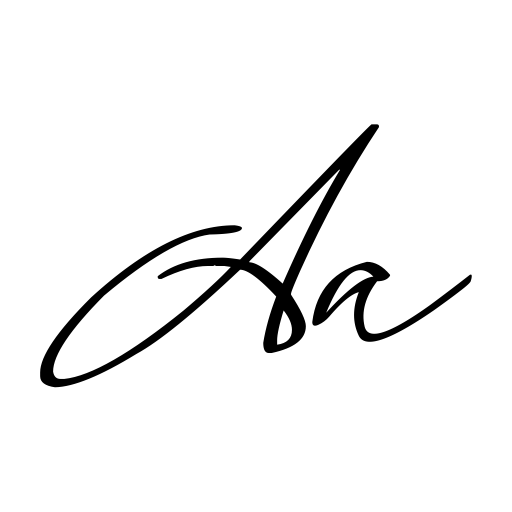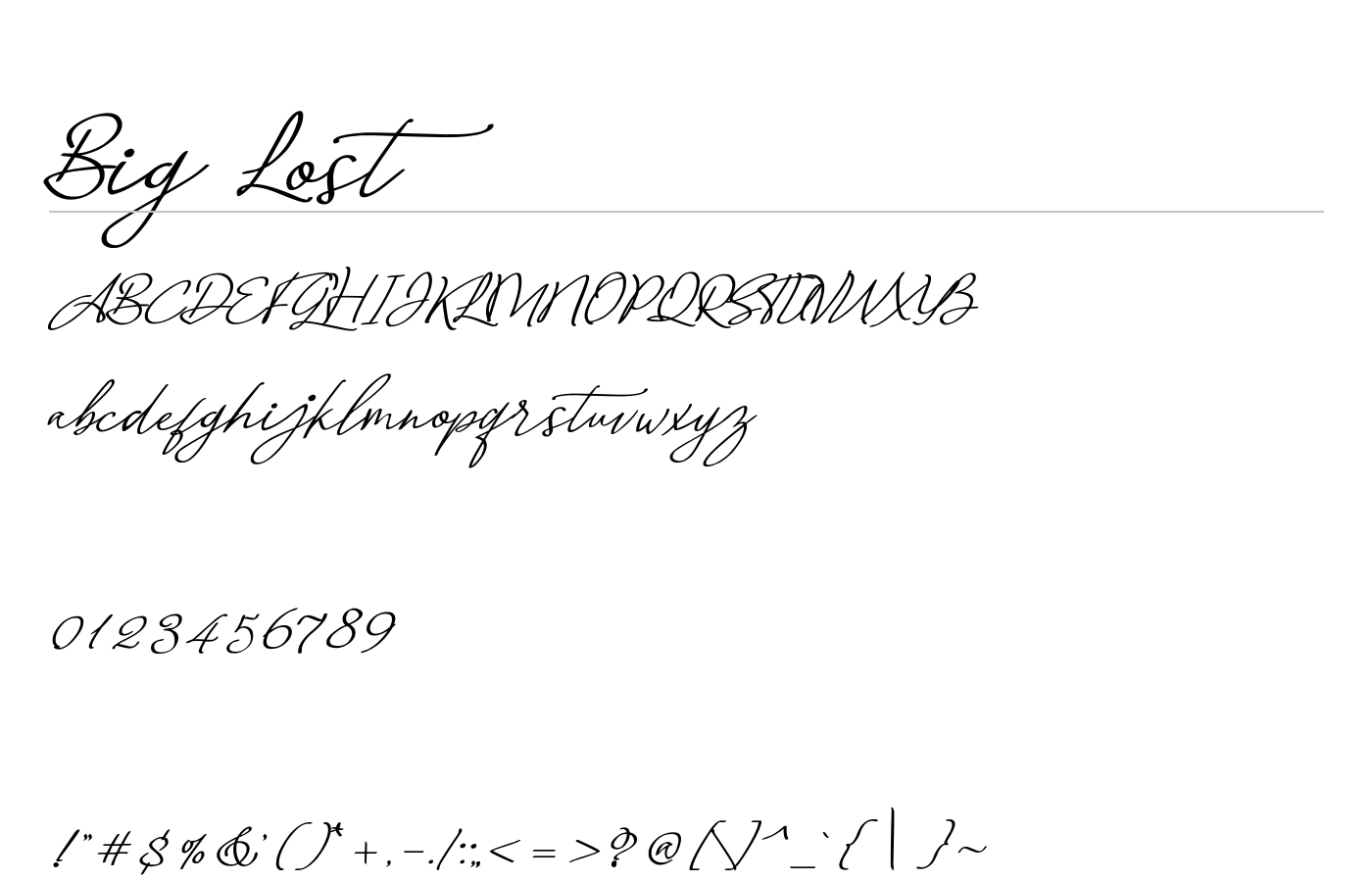
Big Lost is an elegant, flowing script font characterized by its thin, delicate strokes and refined calligraphic style. Its slender, slightly slanted letters with graceful swashes create a sophisticated and artistic feel, making it perfect for invitations, branding, and any design that seeks a touch of classic beauty with a modern twist. This font works beautifully in decorative and headline contexts where a refined, personal touch is desired.
Big Lost Font
About Big Lost Font
| Font family | Big Lost Font |
| Designer | Nico Muslib |